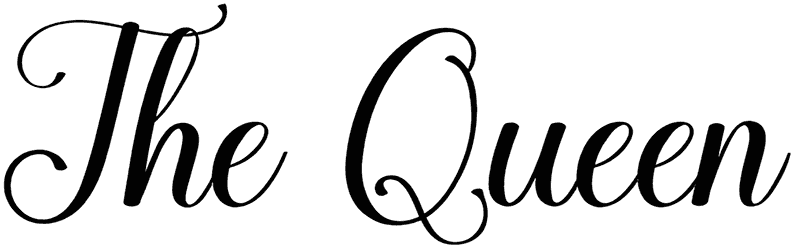
The Queen Font
To write a romantic classic novel or a drama movie poster, choosing realistic manuscript words will be an ideal decision. The Queen is a calligraphy font that is able to cause this to happen. With a full cover of characters, this queen font will turn into a nice choice for varied designs, from formal to informal ones.
The Queen is a fashionable script font. It is neatly crafted and highly detailed. Whatever the topic, The Queen will be a wonderful asset to your fonts’ library, as it has the potential to enhance any creation.